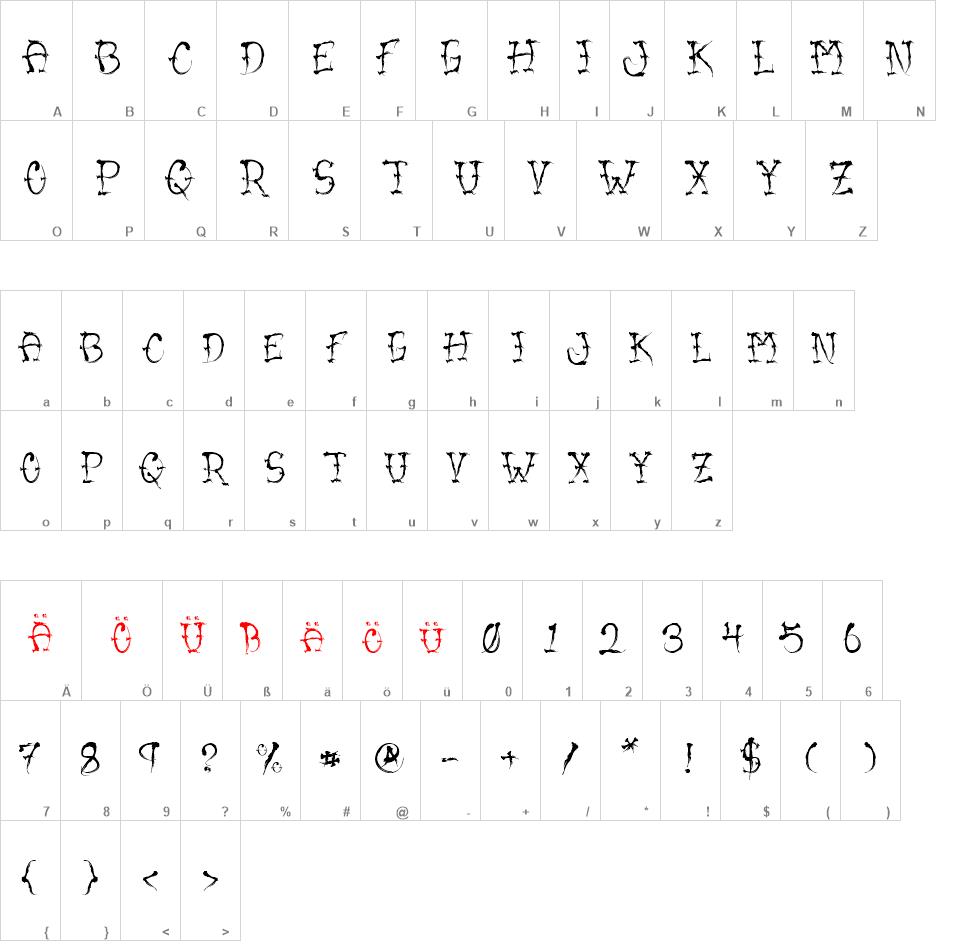
VTC Sumi Slasher One
This is just a simple down and dirty brushed typeface I was messing with and having some fun with in illustrator. there are 7 faces to this set all different and all with complete extended character sets!